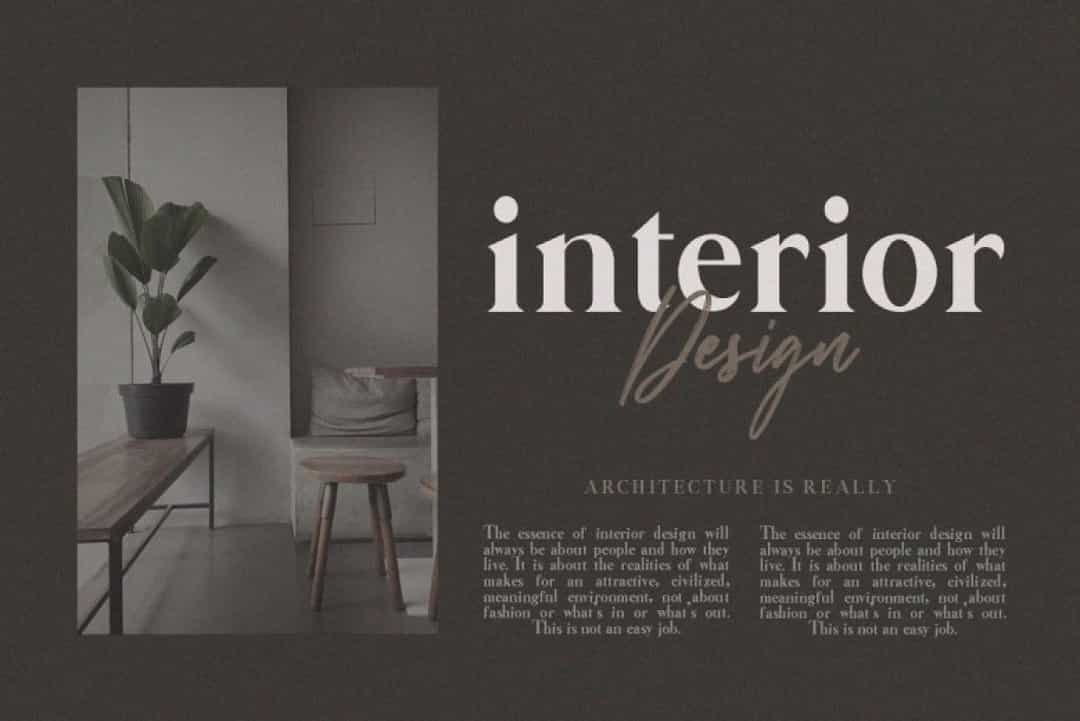
Anything Branding Serif Typeface was inspired by an iconic minimalist logo and can be used in designing templates brochures, videos and brochures; logos; advertising branding and invitations; layout designs Elegant making; Instagram template designing; fashion and beauty cover designs for films etc.